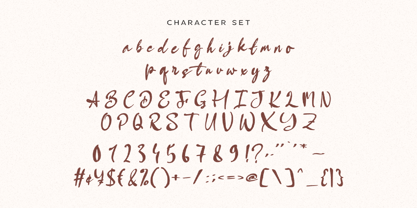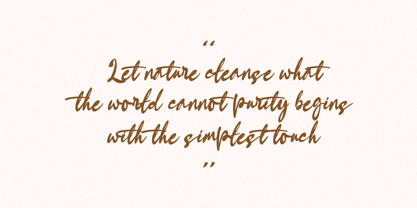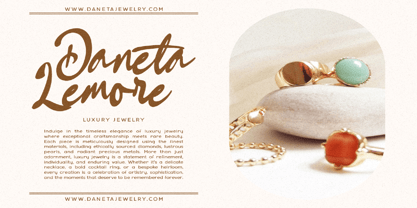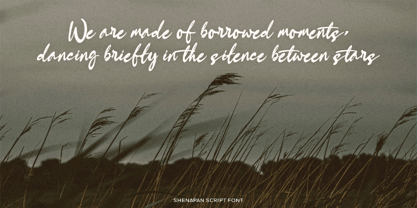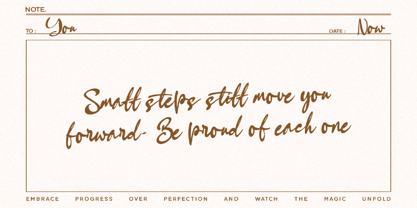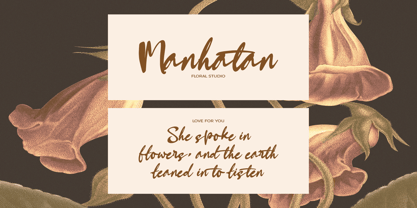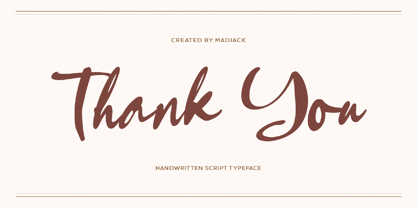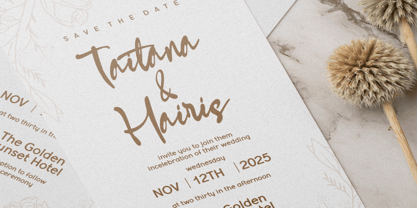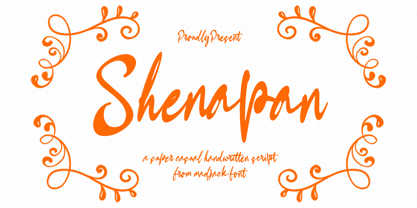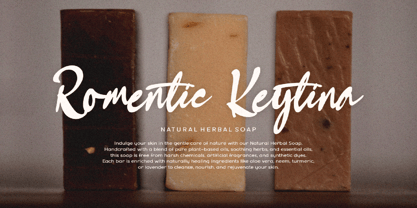
Shenapan
by madjack.font
The Shenapan Font Family was designed by Zaki Muhammad and published by madjack.font. Shenapan contains 1 styles.
Shenapan Script is an elegant and flowing handwritten font. It has a PUA code which means you can access all the glyphs and curves easily! It has a varied baseline, smooth lines, beautiful glyphs, and stunning alternates. It maintains a classy calligraphy influence but still feels contemporary and fresh. Fall in love with this font and take your projects to the next level!